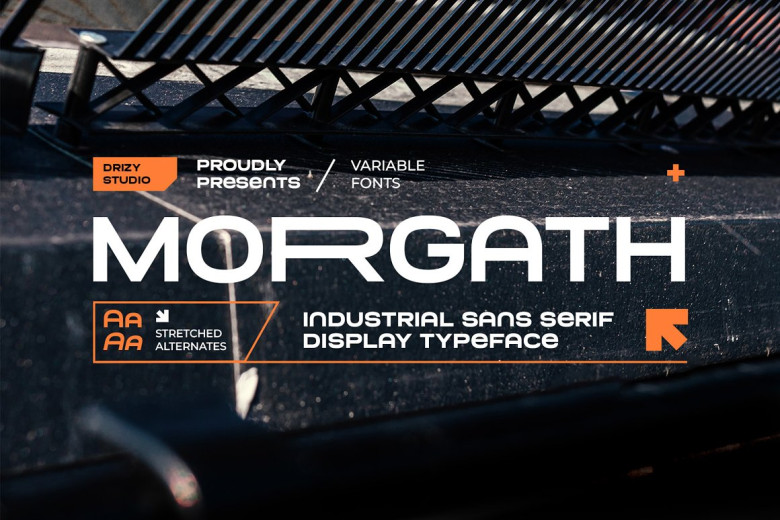
Morgath Font
Morgath is a sans serif font. Experience the latest trends in typography with Morgath! This incredible Industrial Sans Serif Font offers an engaging mechanical look to your work, reflecting both power and accuracy from industrial age design.
Featuring Uppercase & Lowercase Variable Regular Italic Punctuation Numbers Multilingual Support Alternates Ligatures this font gives a powerful mechanical aesthetic! Take the next step forward in design by exploring possibilities with this font which is industrial!
Morgath Sans Serif Font